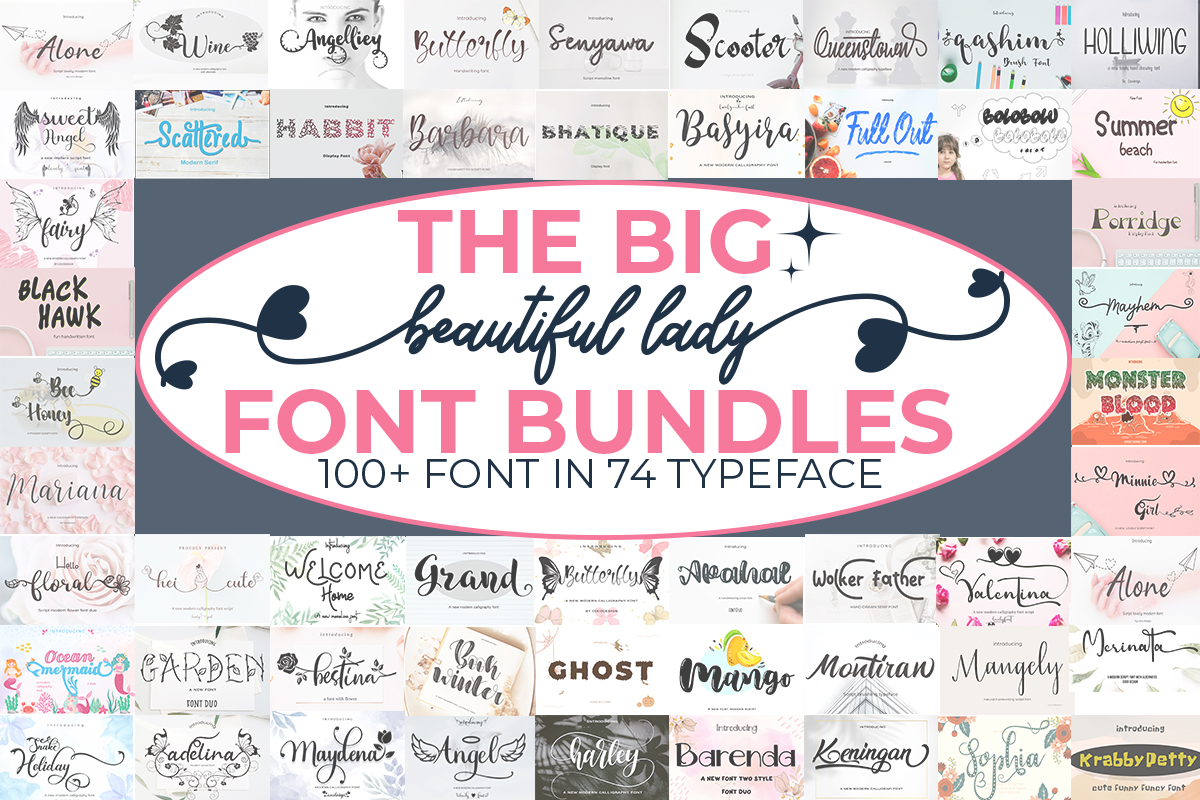
THE BIG !! Beautifull font bundle
This is your chance to get all of my fonts for the super low ! Includes 100+ Fonts in 74 typography. This bundle includes a variety of font styles such as, calligraphy, signature, brush lettering, handwriting, and many more. with hundreds of glyphs, including alternatives, ligatures, slashes, and international language support.
This pack is perfect for greeting cards, branding, business cards, quotes, posters, stickers, blogs, logos, weddings, signage, packaging, birth announcements, photo overlays, wall art, quotes, printed materials, bags, t-shirts and more. . . !